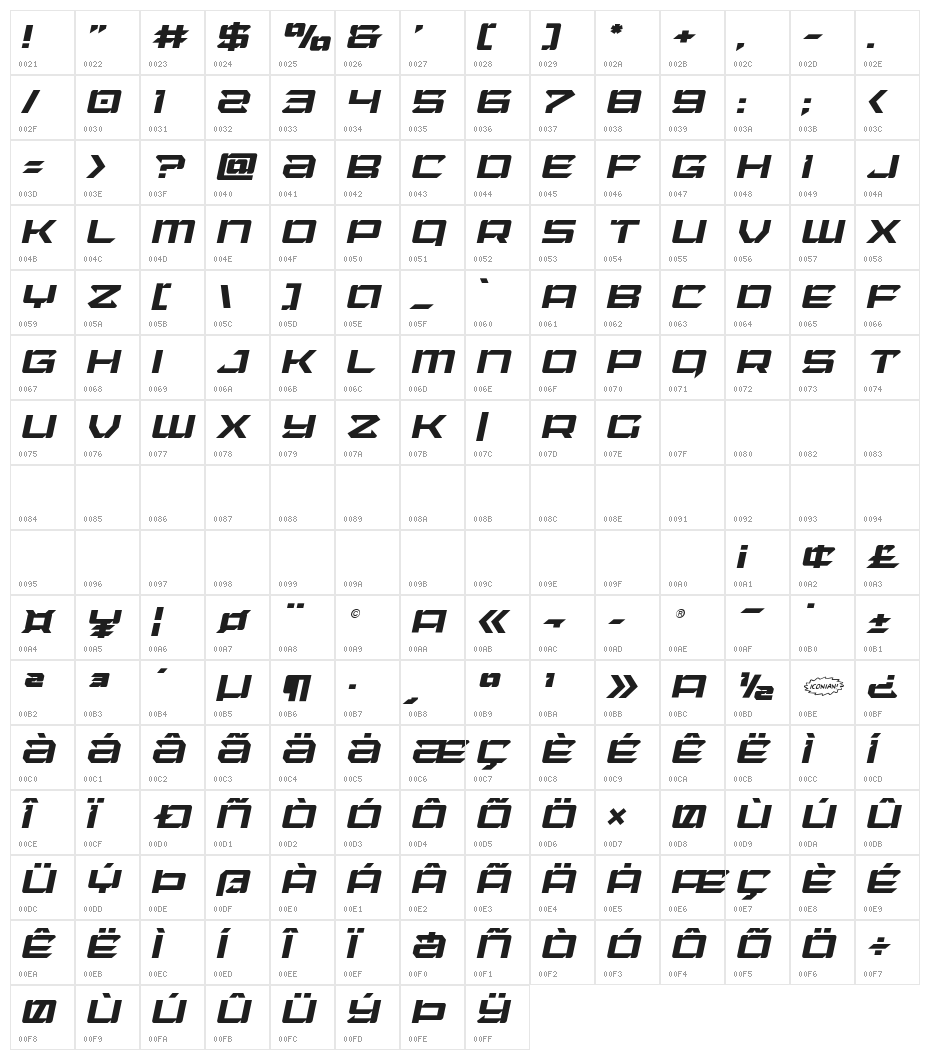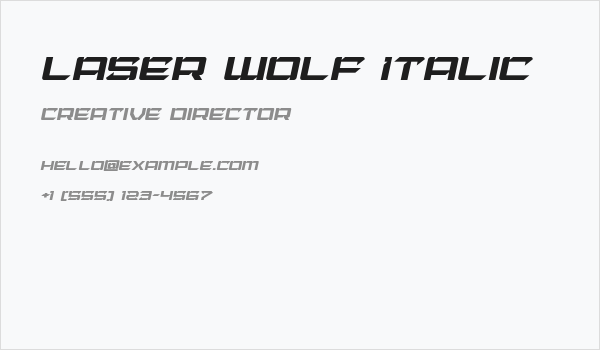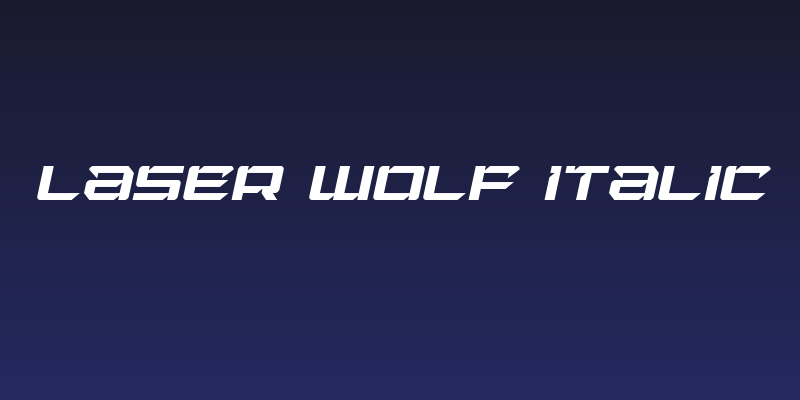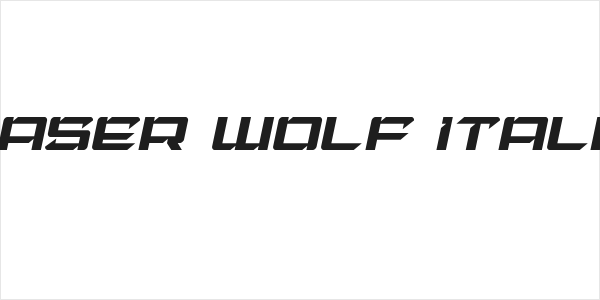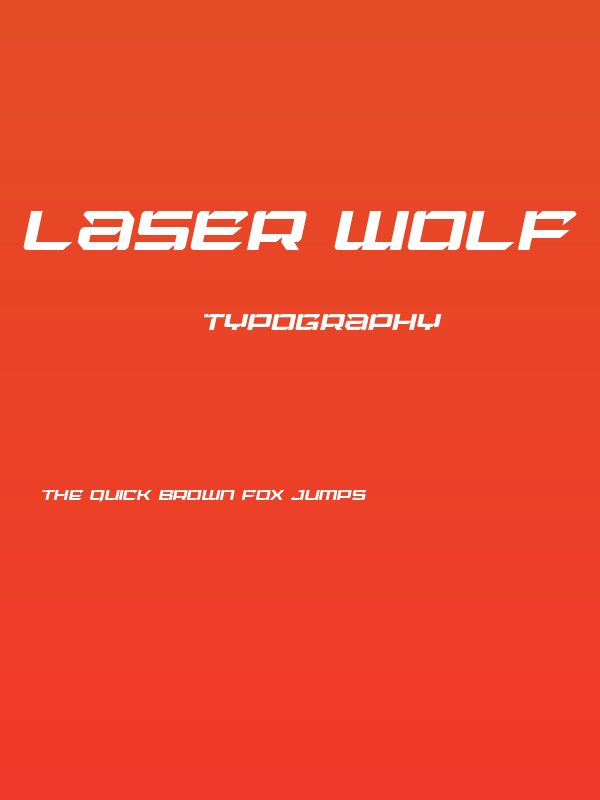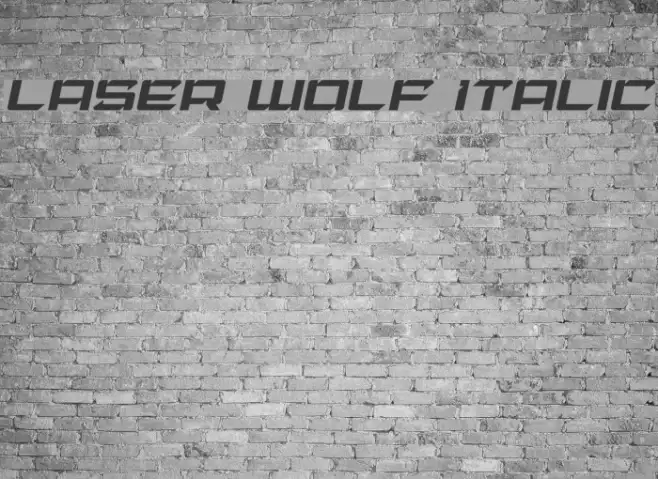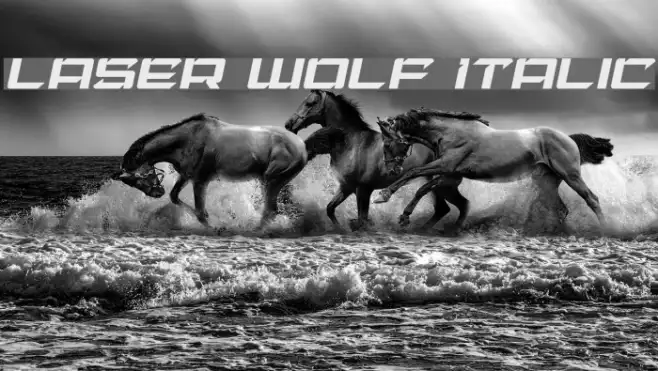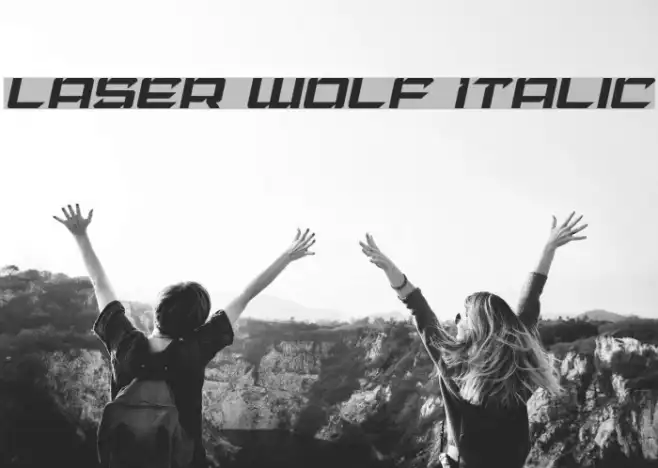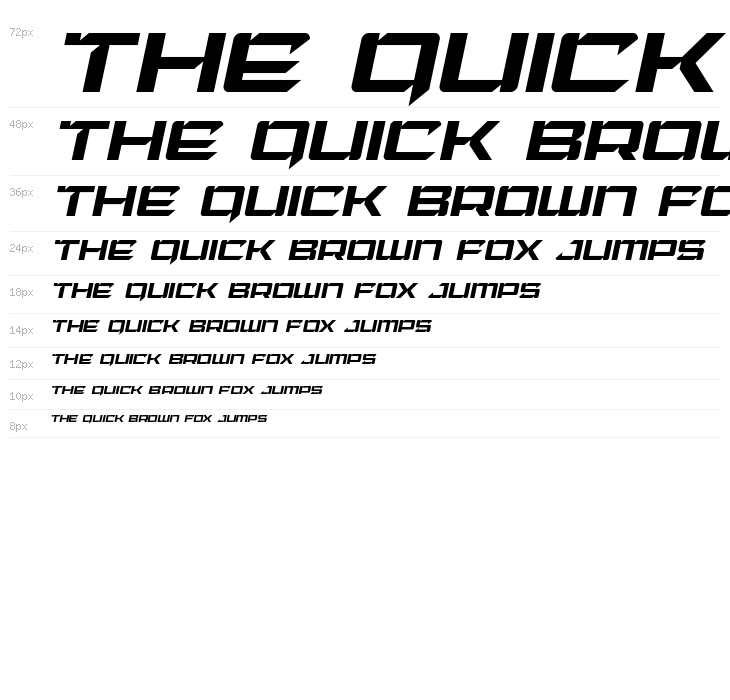
Laser Wolf Italic Font
Laser Wolf Italic Description
This font features a futuristic and angular design, characterized by sharp edges and a dynamic slant that gives it a sense of motion and energy. The uppercase and lowercase letters share a consistent geometric style, with uniform stroke widths that maintain a bold presence. Numbers and special characters are designed to match the angular aesthetic, ensuring a cohesive look across all glyphs. The italicized form enhances the forward-leaning appearance, making it ideal for projects that require a modern and edgy feel.
| Proposed Projects | Ideal for sci-fi themed designs, video game titles, technology branding, and modern advertising campaigns. |